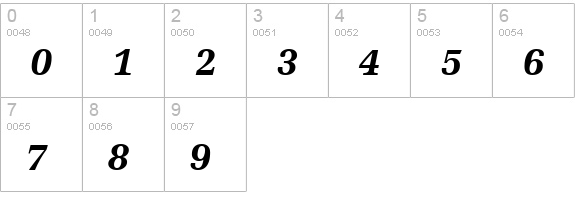
Introducing Memoir Fed Kursiv font, a timeless and elegant typeface that exudes sophistication and charm. With its delicate curves and stylish flourishes, Memoir Fed Kursiv adds a touch of class to any design project. Whether you're working on invitations, branding, or editorial layouts, this font will bring a touch of old-world glamour to your work. The best part? Memoir Fed Kursiv font is available for free download at FontsMarket.com. Simply visit the website to access this exquisite typeface and elevate your design projects with its unique and refined aesthetic. Don't miss out on the opportunity to enhance your creations with the beauty of Memoir Fed Kursiv font. Download it today and let your creativity shine!